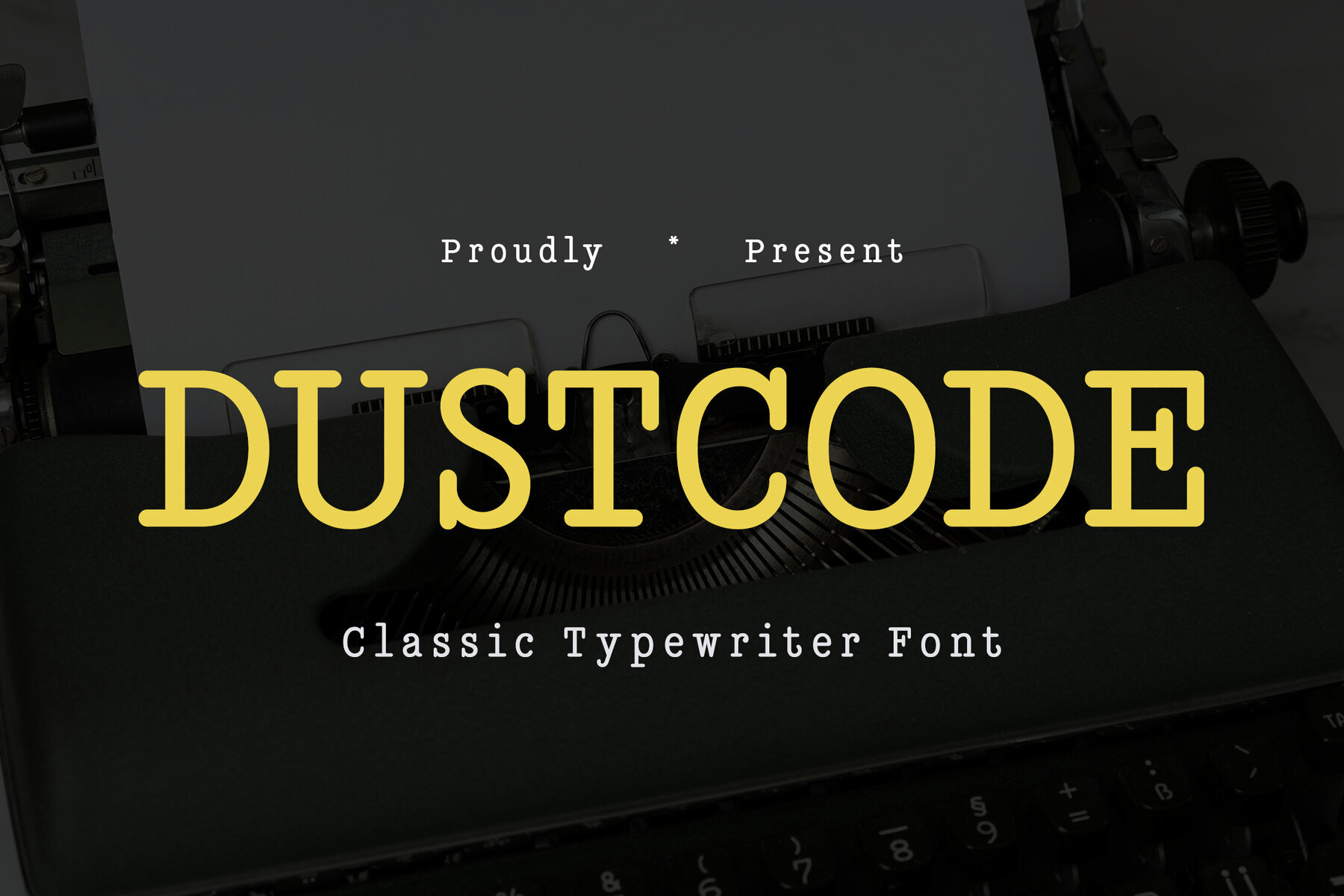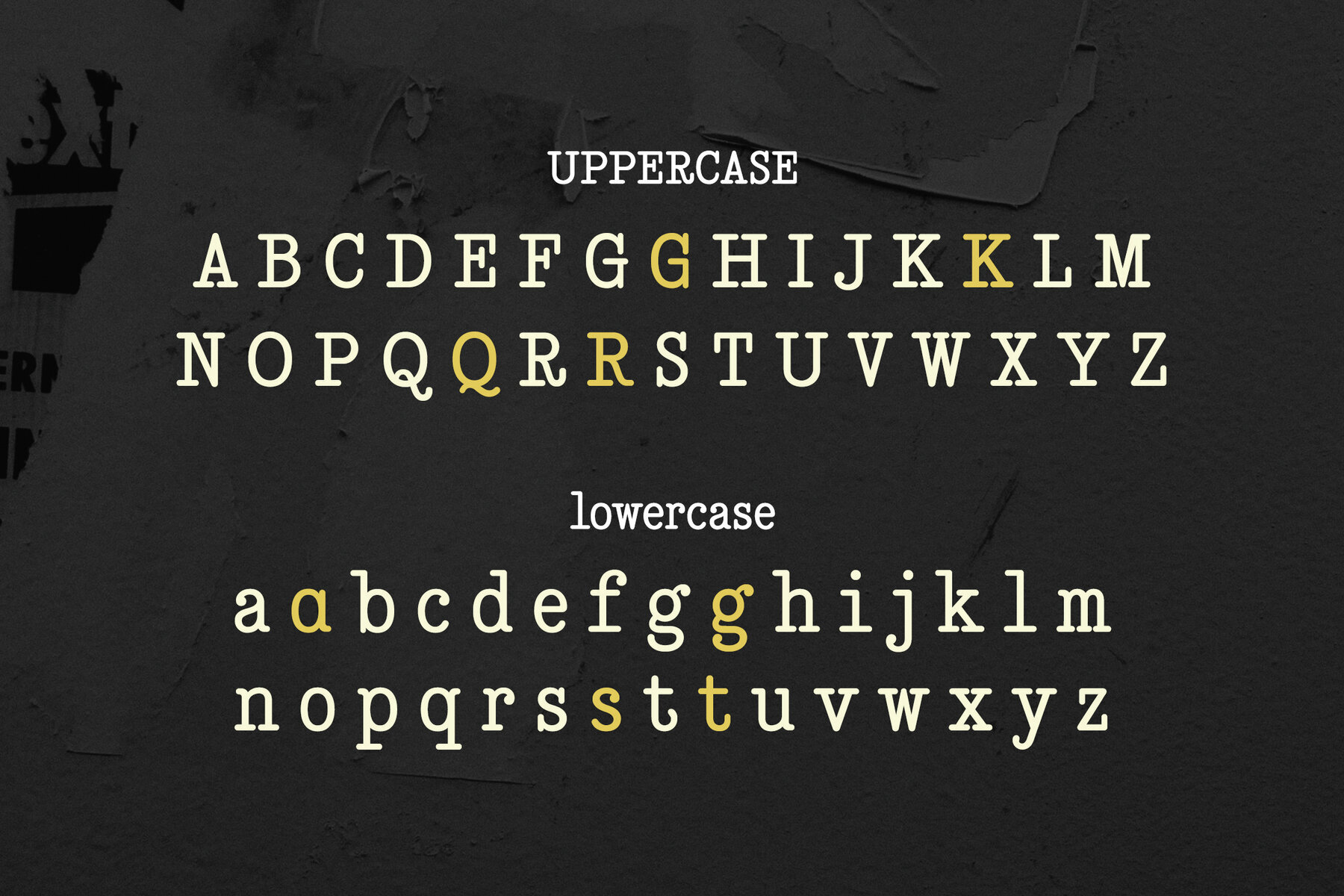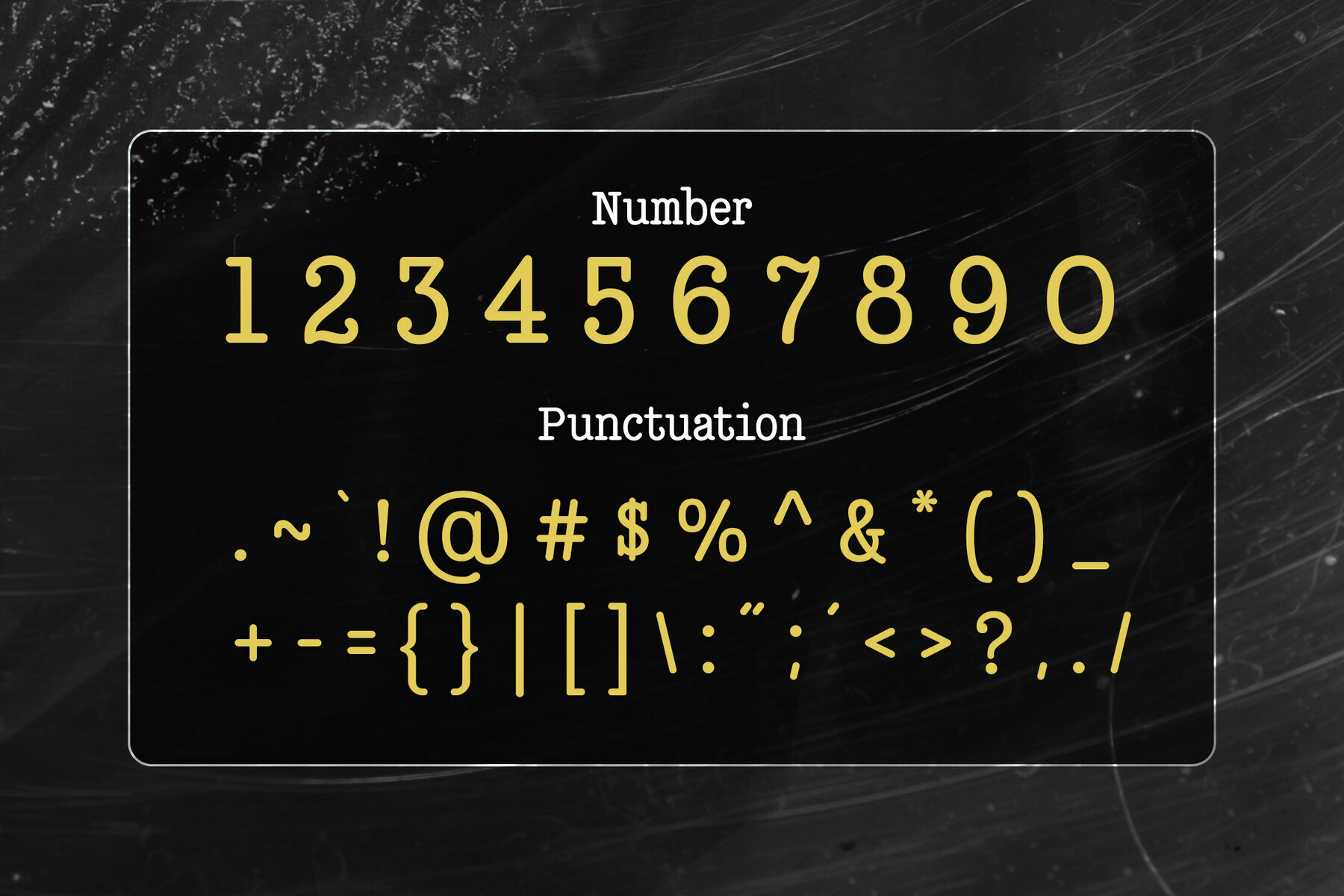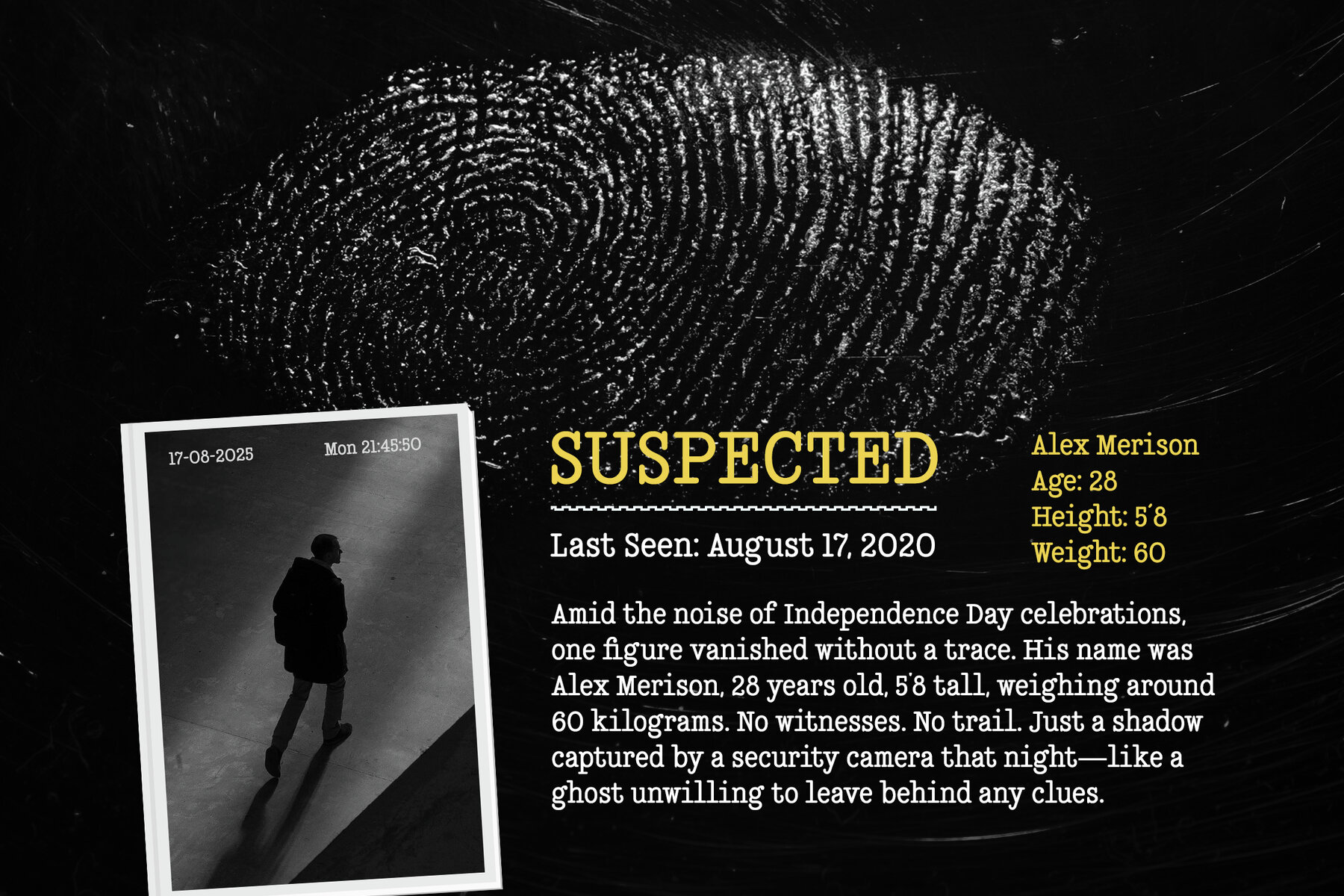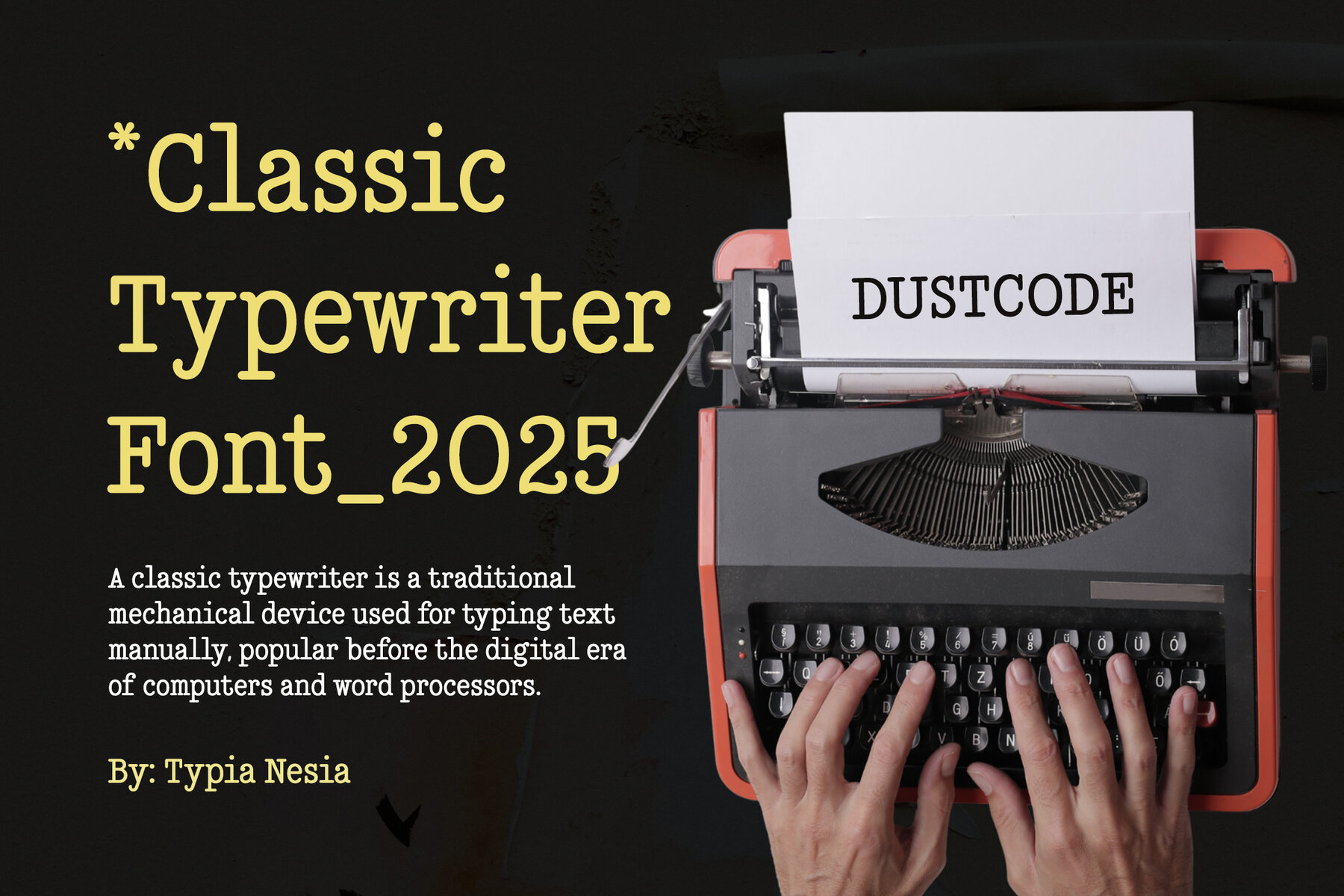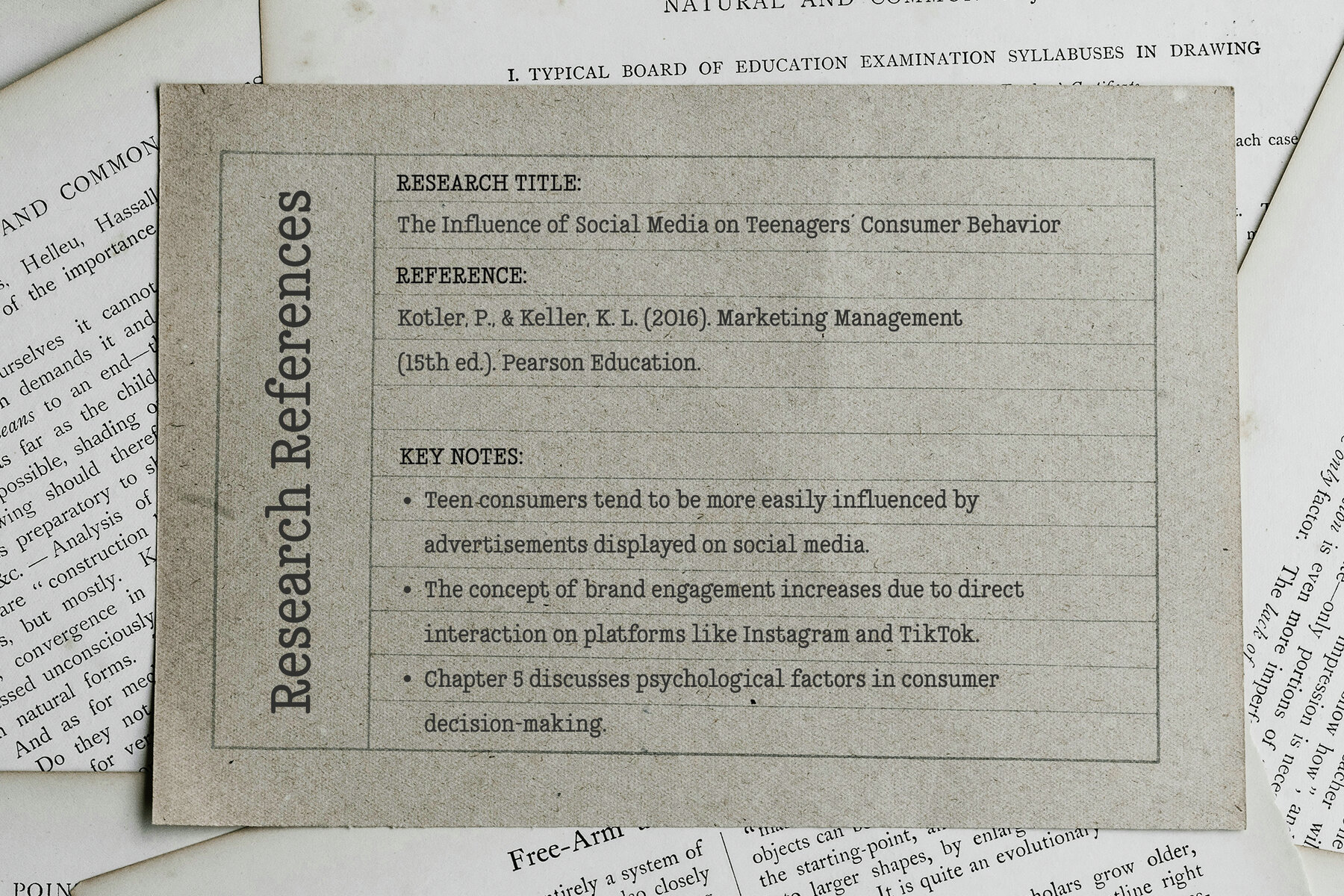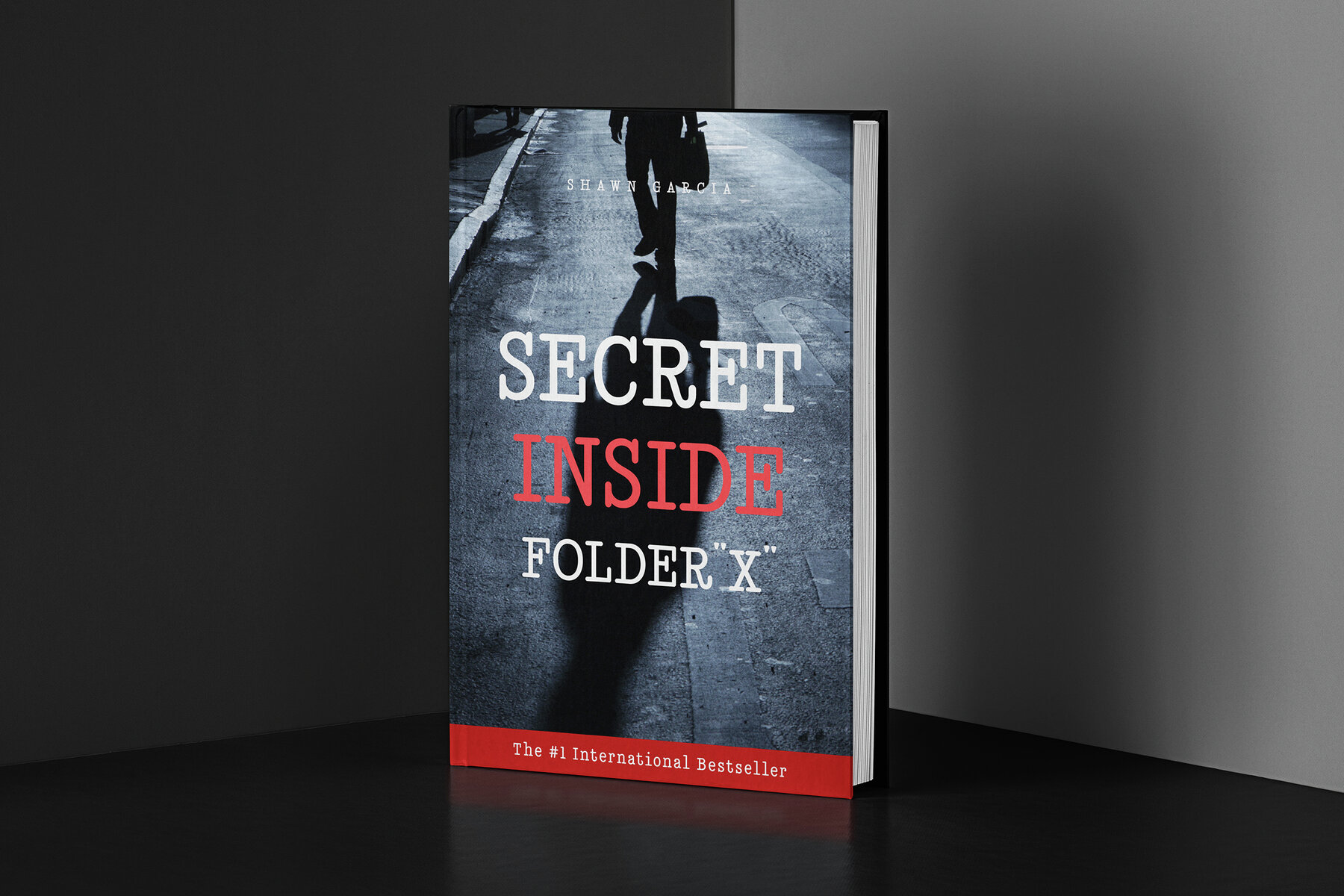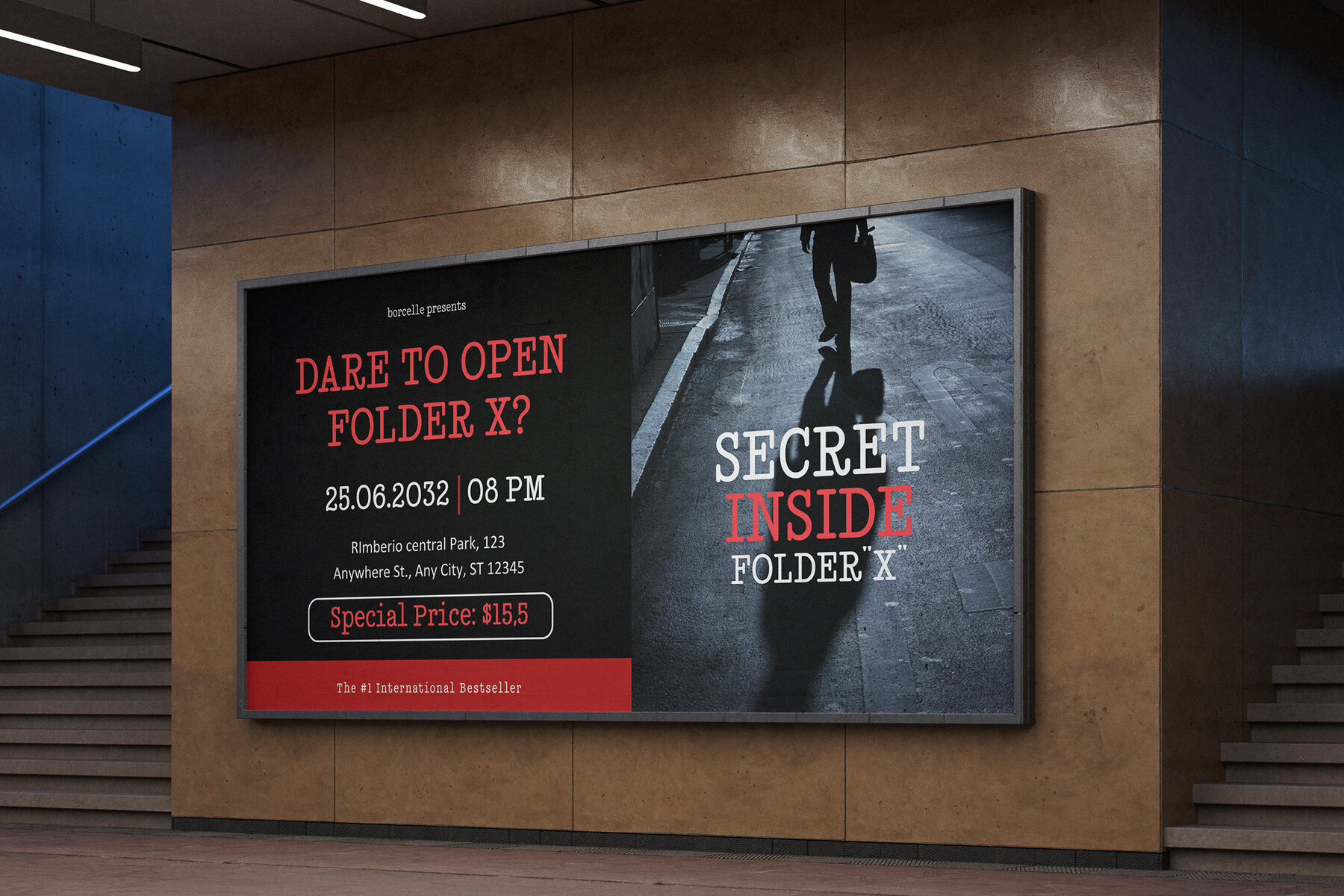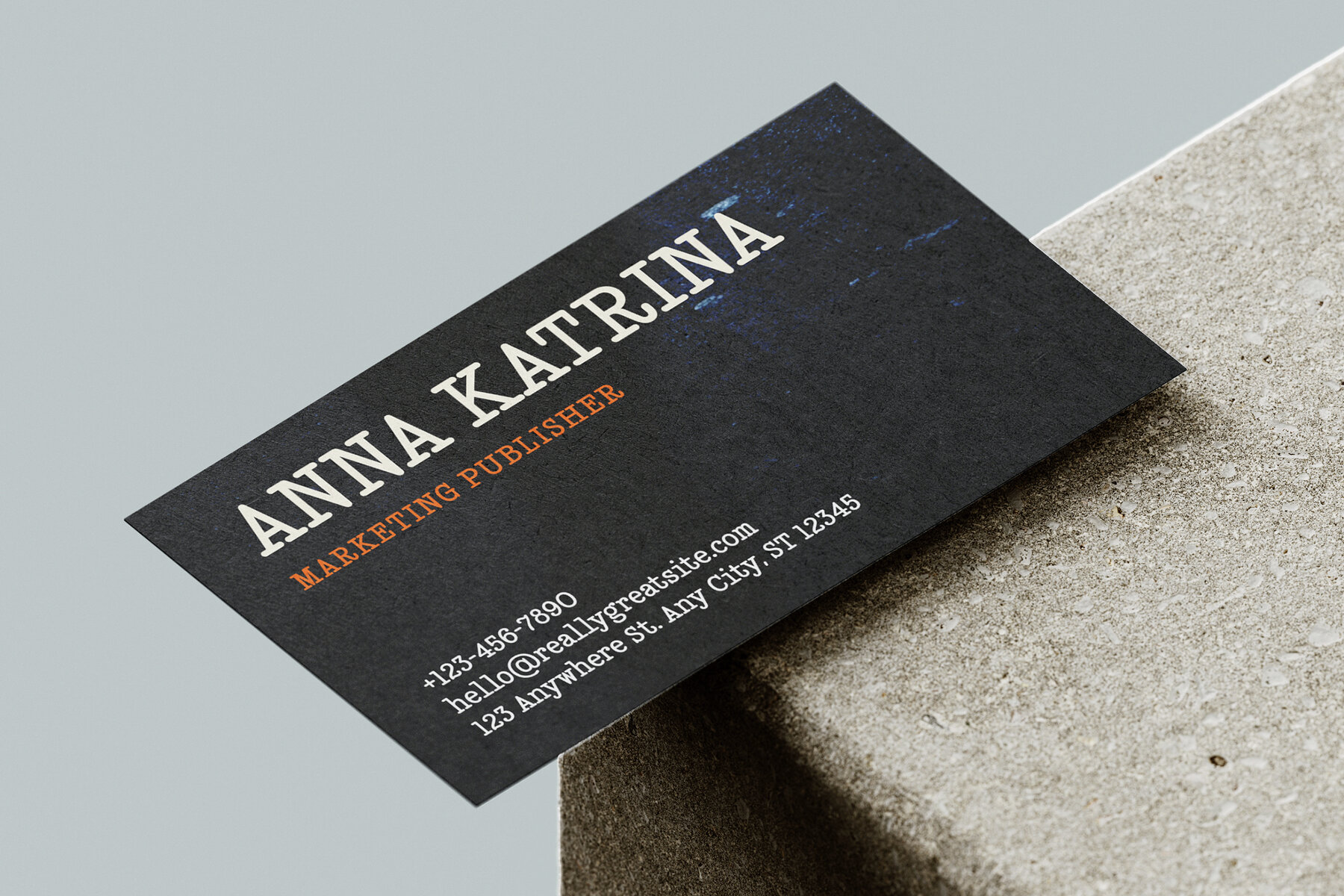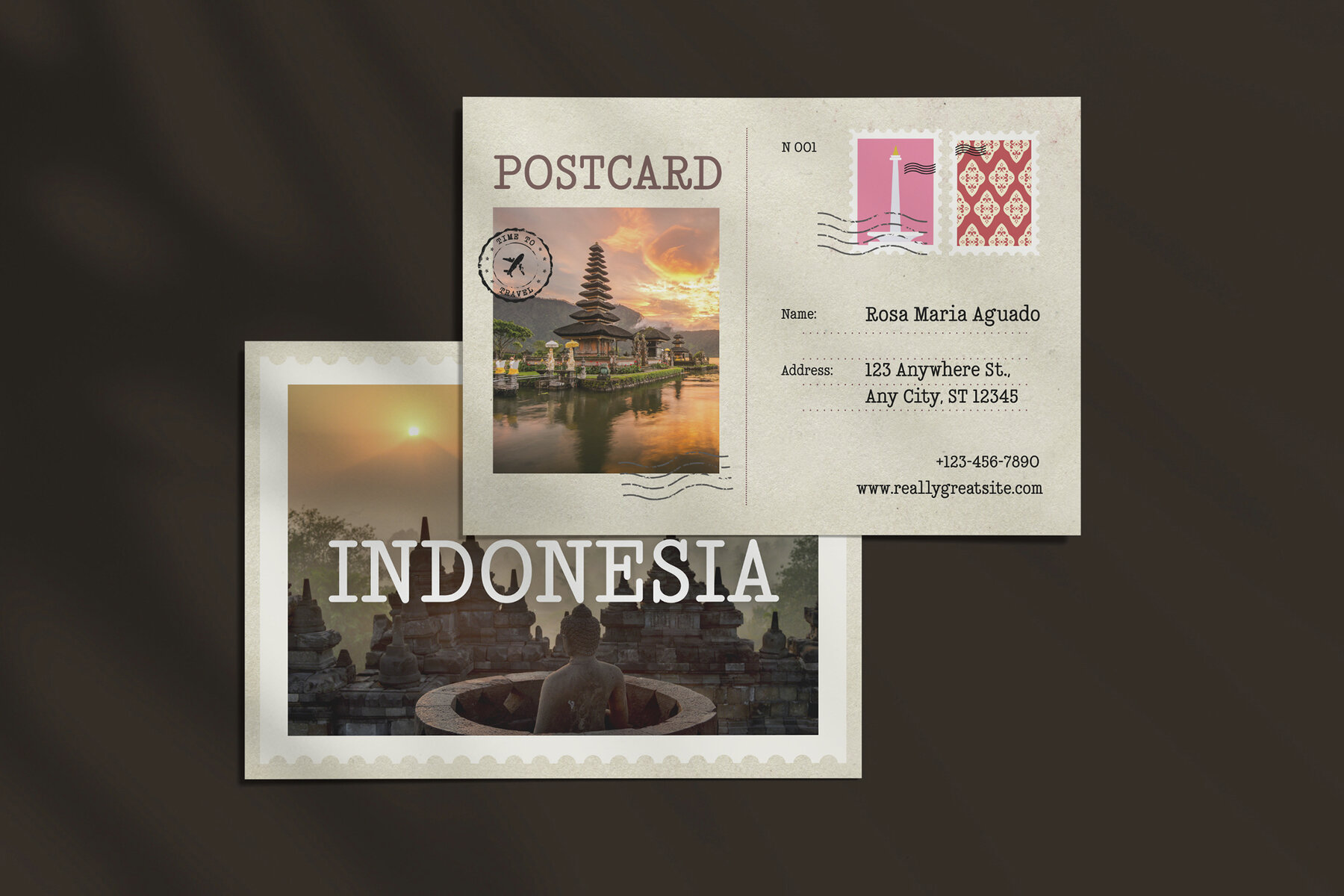
Dustcode Font
Dustcode Regular
Blending a touch of grunge with the aesthetic of mechanical typewriters, Dustcode brings a vintage charm to your creative projects. It's ideal for adding an authentic retro feel to book covers, postcards, posters, headlines, and branding projects. Whether you're designing magazines or crafting logos, this font infuses your work with an old-school appeal that captivates and stands out. Inspired by the traditional typewriter, Dustcode features both uppercase and lowercase alphabets, numbers, and punctuation. This versatility ensures that it's perfect for projects demanding either a bold statement or a subtle hint of nostalgia. The font's elegant combination of classic and contemporary elements makes it a go-to choice for designers wishing to impart a sense of timeless style.Dustcode: A Classic Typewriter Font with Modern Edge